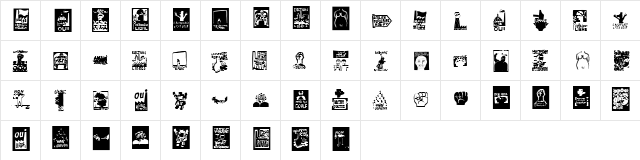
Mai1968 Regular Font Preview
Mai1968 Regular
Design Context for Mai1968 Typeface
Mai1968 is a composed and adaptable typeface that performs quietly and consistently across a wide range of design contexts.